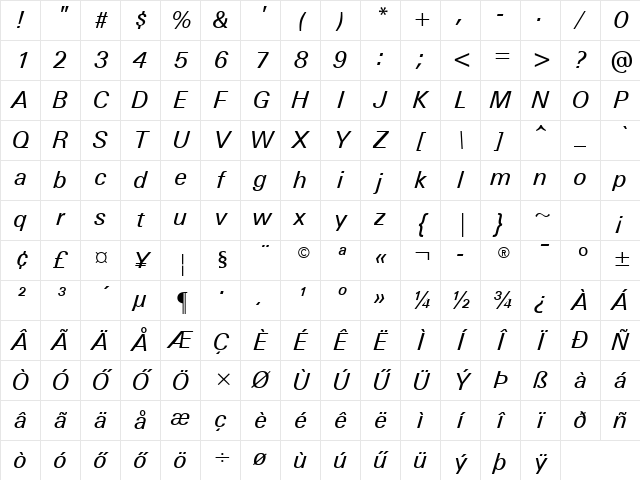
H_BLD16 Regular Free Font
H_BLD16 Regular
Design Context for H_BLD16
H_BLD16 is a composed and adaptable typeface that performs quietly and consistently across a wide range of design contexts.